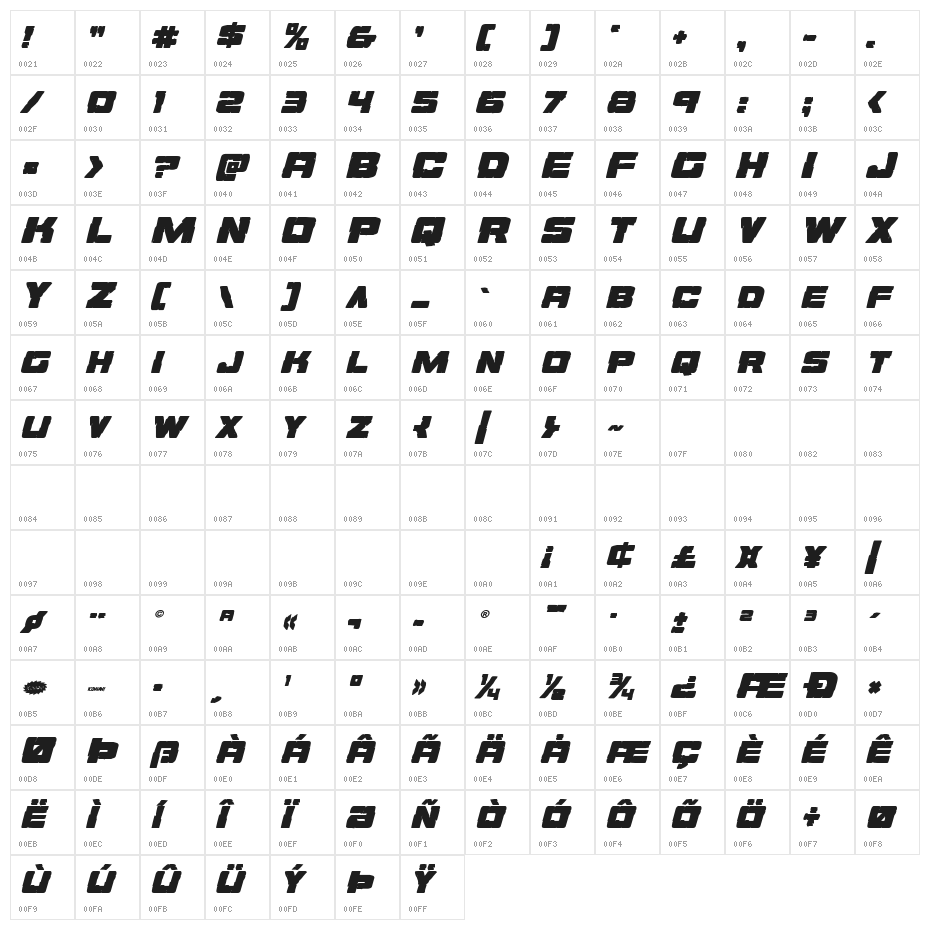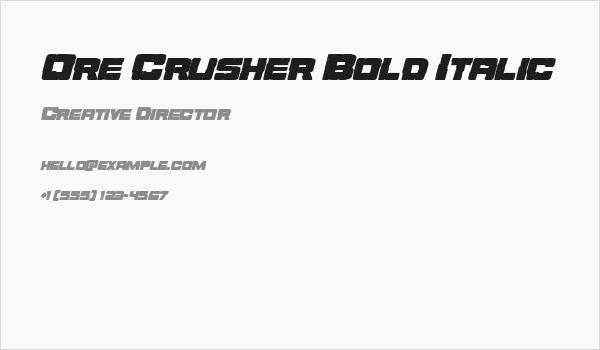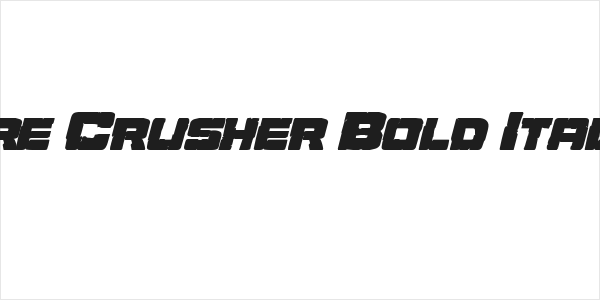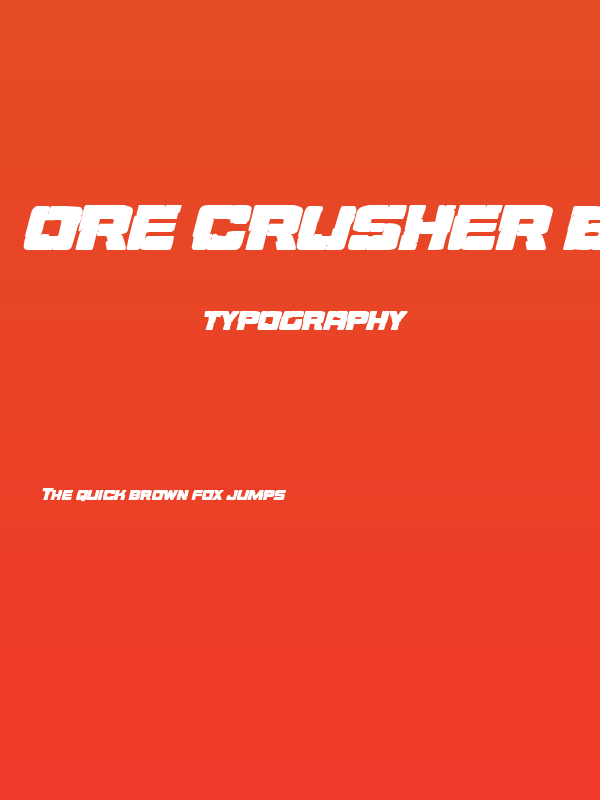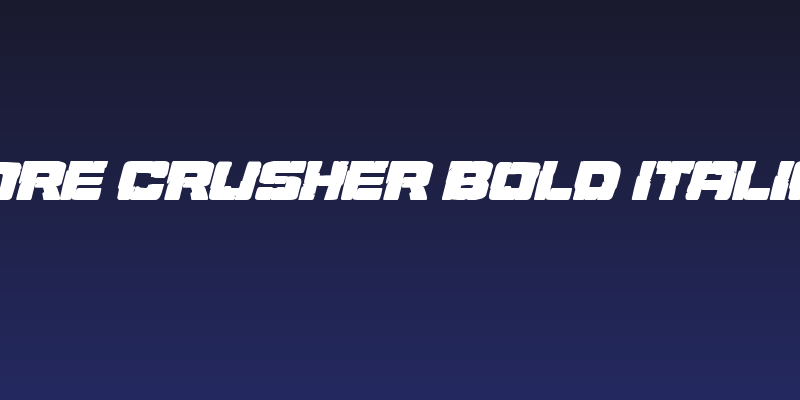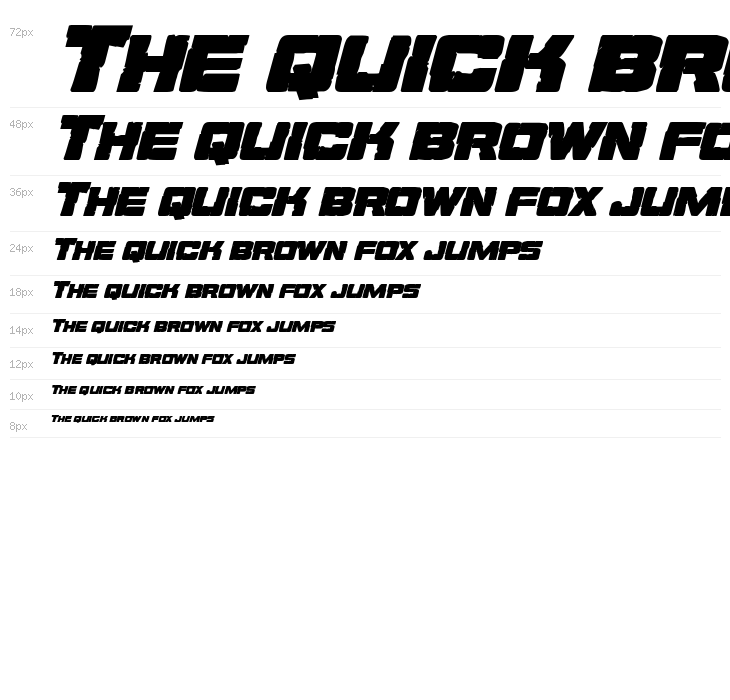
Ore Crusher Bold Italic Font
Ore Crusher Bold Italic Description
This bold and italicized font features a rugged and industrial design, characterized by its thick, blocky letters with sharp edges and a slightly slanted orientation. The uppercase letters are prominent and assertive, while the numbers and special characters maintain the same robust style. The font's heavy weight and angular cuts give it a strong presence, making it ideal for projects that require a bold statement. Its unique style is reminiscent of machinery and construction, adding a sense of strength and durability to any design.
Overall StyleIndustrial, Bold
Use CaseLogos, Posters, Branding
Proposed ProjectsIdeal for branding, logos, posters, and any design requiring a bold, industrial look.